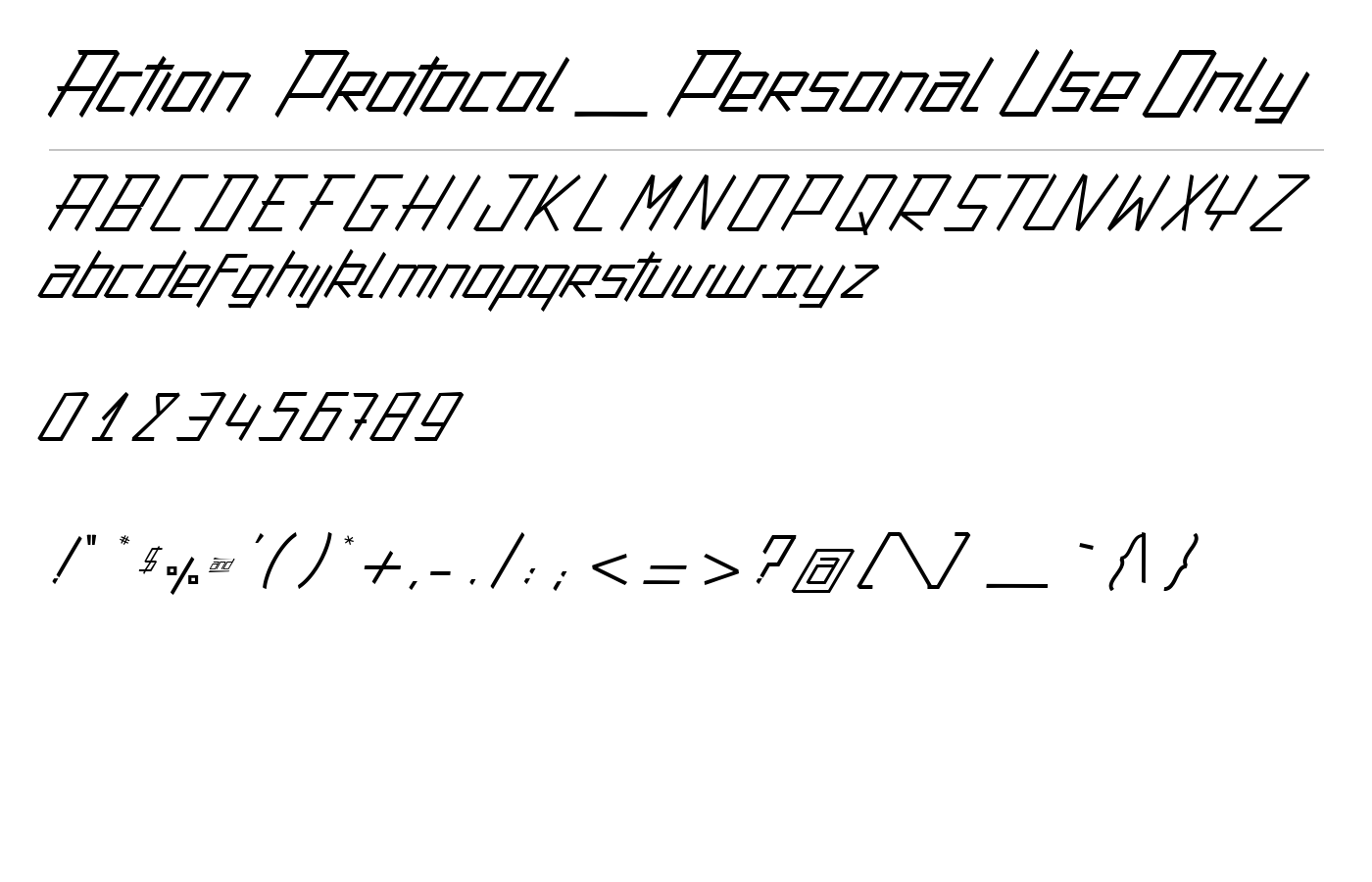
Action Protocol is a sleek, angular sans serif font with an italicized, condensed style that gives it a dynamic, futuristic feel. Its thin strokes and geometric shapes make it perfect for modern tech or sports branding, headlines, and designs where a sense of speed and precision is key. This font works best in eye-catching displays rather than body text due to its distinct, stylized letterforms.
| Font family | Action Protocol_PersonalUseOnly Font |
| Designer | Gregory Medina ©dcodesign |